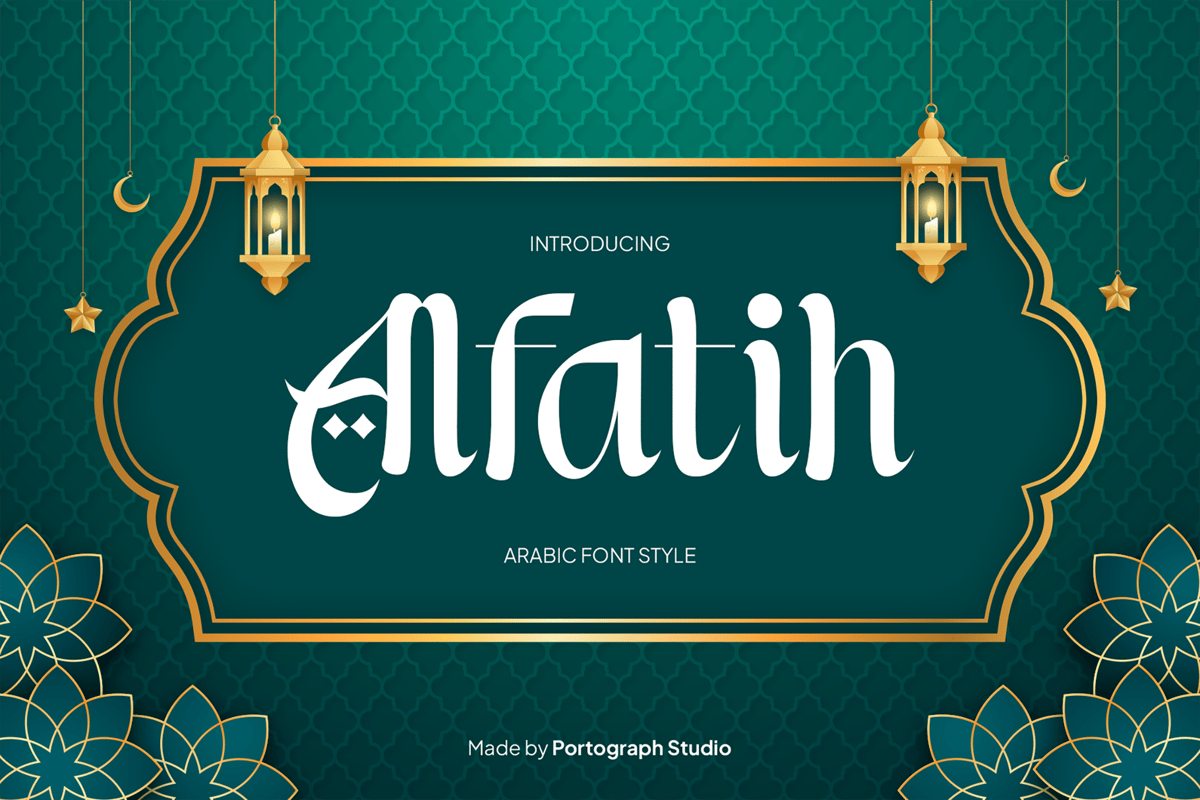
Alfatih - Arabic Font
Transform your designs with Alfatih, an elegant Arabic-inspired display typeface that brings luxurious spiritual atmosphere to any project. Drawing inspiration from classic Arabic calligraphy and Islamic ornamental design, this sophisticated font features smooth curves, graceful strokes, and refined proportions that deliver both elegance and cultural authenticity. Perfect for creating memorable branding, ceremonial invitations, cultural publications, and any design requiring a touch of Middle Ea...